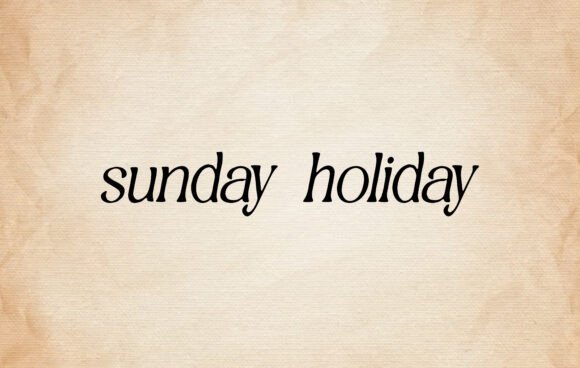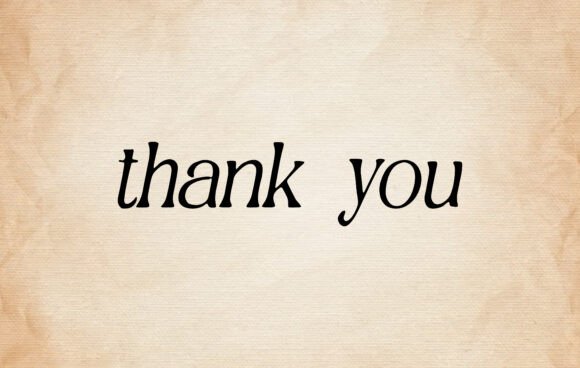
Introduction to Reverence Font
Imagine you’re browsing through a vintage bookstore, flipping through pages of old magazines, and stumbling upon a font that instantly catches your eye. The letters dance across the page, drawing you in with their elegant curves and bold lines. This is the moment when a font truly comes alive, and for designers, it’s a moment of pure joy. The Reverence Font is one such font that has the potential to elevate your creative ideas to new heights.
As a valuable addition to any design resource, Reverence Font is expertly designed to be both legible and visually stunning. Whether you’re working on a high-quality magazine headline, a wedding invitation, or a social media post, this font has the versatility to shine. And the best part? It’s available for free download, making it an accessible design tool for creatives of all levels.
Key Features of Reverence Font
- High-quality, elegant design suitable for creative projects requiring a touch of sophistication.
- Reverence Font is designed in a large size, making it perfect for use in signage, banners, and other large-scale creative projects.
- Unique characteristics include elegant flourishes and intricate details, adding a touch of luxury to any design.
Honest Review: Reverence Font
As a designer, I’m always on the lookout for high-quality design resources to elevate my creative projects. The Reverence Font caught my attention, and I decided to give it a try. Here’s my honest review.
- ✨ The font features a beautiful, elegant design with a transparent background, perfect for creative projects that require a touch of sophistication.
- ✨ The font is highly versatile and can be used for a wide range of applications, from invitations to magazine layouts.
- ⚠️ The font may not be suitable for projects that require a bold, attention-grabbing look, as it’s more understated in nature.
- ⚠️ Some users may find the font’s transparent background to be a bit tricky to work with, especially when using it on dark-colored backgrounds.
Overall, I’m impressed with the Reverence Font’s high quality and versatility. While it may have some limitations, it’s an excellent design resource for anyone looking to add a touch of elegance to their creative projects.
Designing with Reverence Font
Tips for Getting the Most Out of Reverence Font
To get the most out of the Reverence Font, use it with a transparent background to create a clean and modern look. You can also experiment with different font sizes, colors, and styles to create a unique and eye-catching design.
Common Use Cases for Reverence Font
The Reverence Font is commonly used for wedding invitations, business cards, and other creative projects that require a touch of sophistication. It’s also a great choice for designers who want to add a sense of elegance to their designs without breaking the bank.
Alternatives to Reverence Font
Pacifico is a high-quality, elegant script font perfect for creative projects that require a touch of sophistication. It’s available for free download and features a transparent background, making it ideal for designs where the text needs to be visible against any background.
Use Pacifico for wedding invitations, luxury brand logos, or any project where you want to convey elegance and refinement. Compared to Reverence Font, Pacifico has a more relaxed and casual feel, making it suitable for a wider range of design applications.
Great Vibes is a modern, high-quality script font that’s perfect for designers looking for a unique and creative font for their projects. It features a transparent background and is available for free download, making it a valuable design resource.
Yes, the Reverence Font includes a transparent background option, allowing you to easily integrate it into your design projects. This feature is particularly useful when working with layered designs or creating compositions with varying background colors.